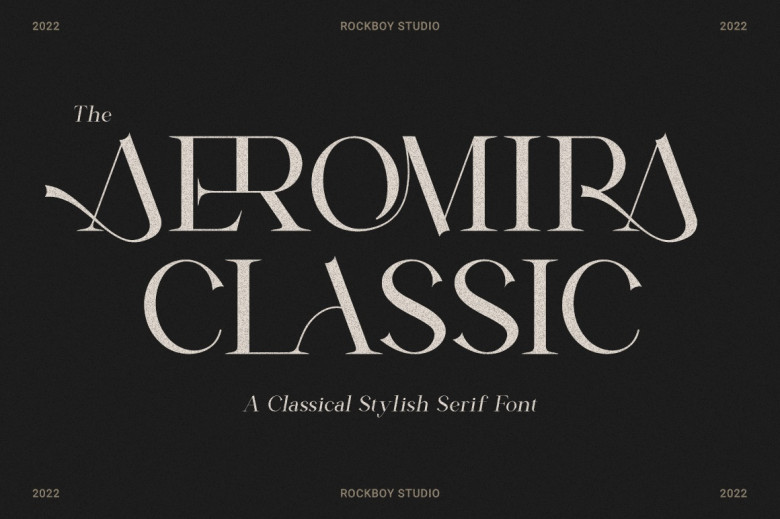
Aeromira Classic Font
Aeromira Classic  is an elegant and thin-lettered serif font. But it keeps its classy calligraphic influences and appears modern and fresh at the same time. Fall in love with this one and take your projects to the best. Give it a shot!
Aeromira Classic Serif Font